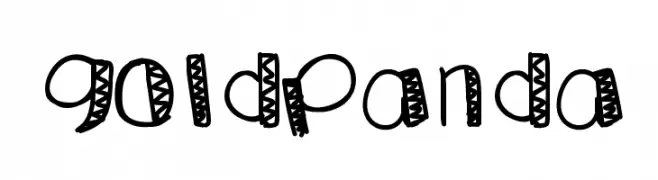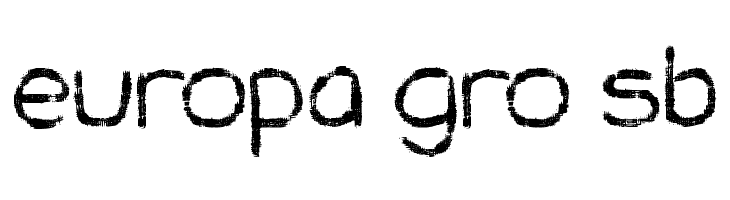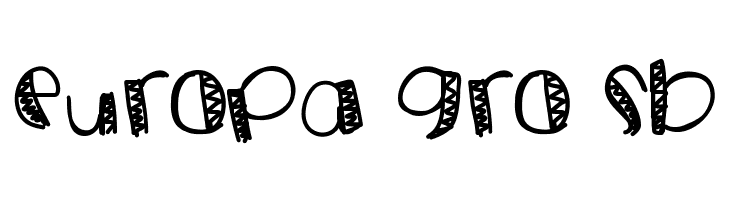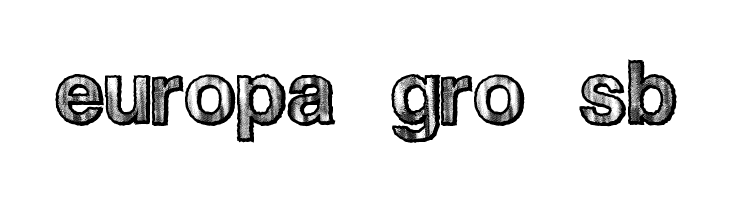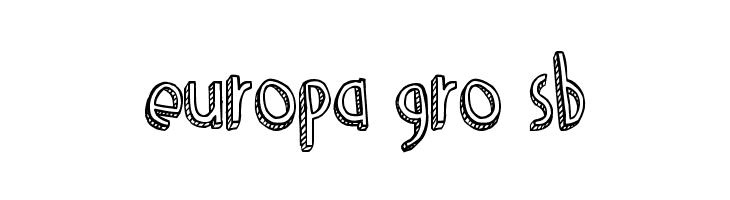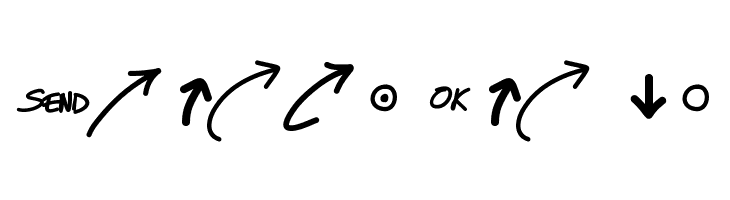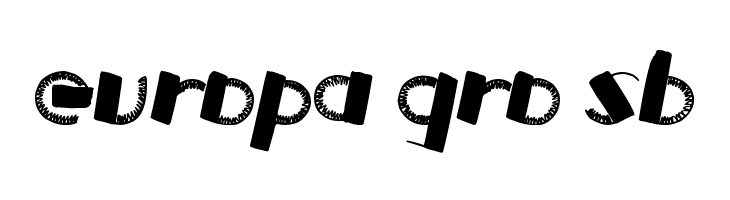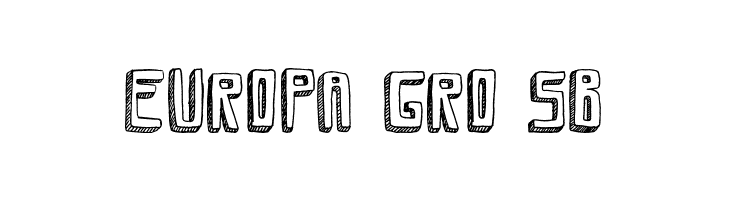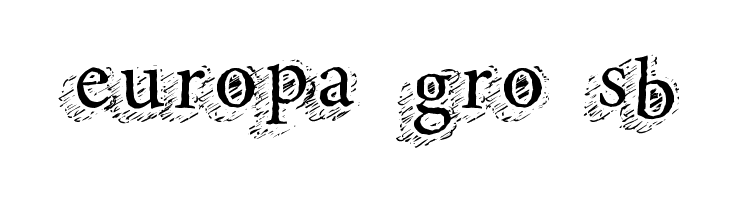
• KGFlavorAndFramesTwo
Hand-drawn decorative frames and comic elements in a playful style.
• KG Chasing Pavements
A textured, hand-drawn font with a bold, artistic style.
• GoldPanda
A playful, hand-drawn font with a quirky and artistic flair.
• CerttoHeadline
A bold, distressed font with a hand-drawn, textured style.
• DealMaker
A bold, textured font with a hand-drawn, artistic style.
• Denne Shuffle Euro Hollow
A playful, hand-drawn font with hollow, textured characters.
• PWNewArrows
A playful, hand-drawn collection of arrows and symbols with a casual style.
• Russian Roulette
A bold, edgy font with a hand-drawn, rebellious style.
• SaviaShadow//ANTIPIXEL.COM.AR
• SwiftChops
A bold, textured serif font with a hand-drawn, artistic style.